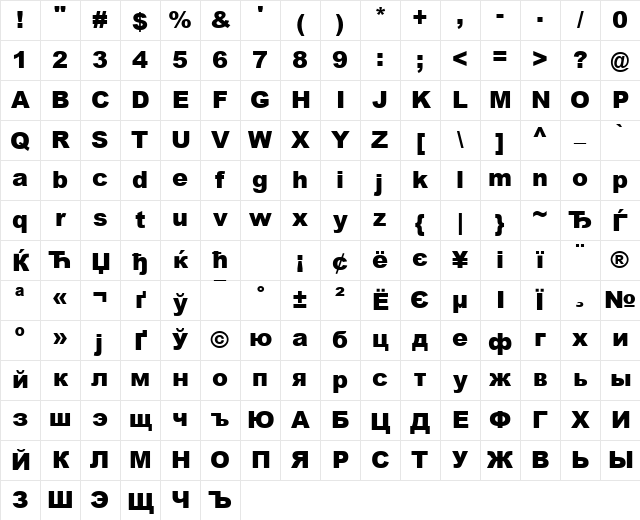
Arial Black KOI8 Regular
Design Context for Arial Black KOI8
Arial Black KOI8 is a composed and adaptable typeface that performs quietly and consistently across a wide range of design contexts.
Pro Tip: Use Arial Black KOI8 in both headline and body roles to test its range before committing to a single application.